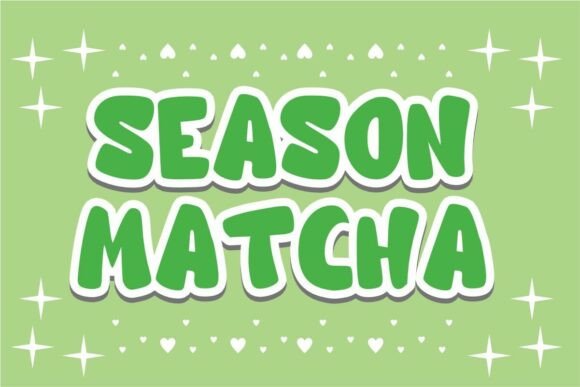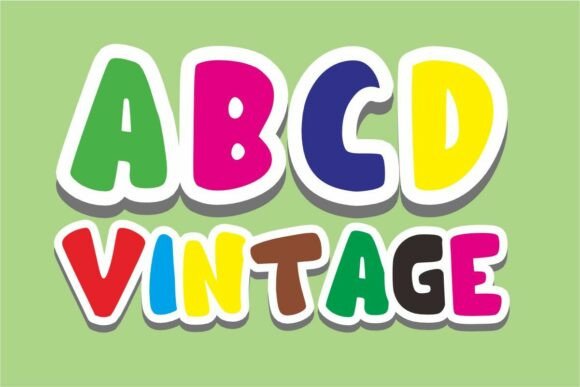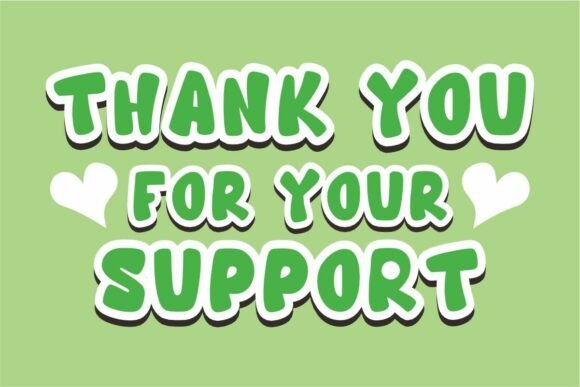
Introduction to Matcha Bubble Font
Have you ever stared at a blank canvas, pencil in hand, searching for the perfect font to bring your creative project to life? The struggle is real, but what if you stumbled upon a font that not only captured your imagination but also guaranteed a fun impact? Enter the Matcha Bubble Font, a cheerful display alphabet font that’s about to revolutionize the way you design.
With its bold, rounded letters and large x-height, this high-quality font is perfect for grabbing attention. Whether you’re creating birthday sets, classroom posters, or party banners, the Matcha Bubble Font is sure to add a playful touch. And the best part? It’s completely kid-safe, making it an ideal choice for designers working on children’s products or educational materials.
Key Features of Matcha Bubble Font
• Unique, hand-drawn design with a playful, whimsical feel, ideal for adding a touch of personality to your work.
• Features a transparent background, allowing for easy customization and layering in your creative project.
• Includes a range of sizes and resolutions, from 10pt to 72pt, to suit your specific design needs.
• Designed to be highly legible and versatile, making it suitable for a variety of applications, from digital to print.
Honest Review: Matcha Bubble Font
As a designer, I’m always on the lookout for unique and high-quality design resources to elevate my creative projects. The Matcha Bubble Font is one such resource that caught my eye. In this review, I’ll share my honest thoughts on what works well and what could be improved.
• ✨ Unique design style: The Matcha Bubble Font has a distinctive, playful aesthetic that’s perfect for projects that require a touch of whimsy.
• ✨ High-quality glyphs: The font includes a wide range of glyphs, including punctuation marks and numbers, ensuring that your text looks polished and professional.
• ⚠️ Limited font sizes: The font only includes a limited range of font sizes, which may not be ideal for projects that require precise typography.
• ⚠️ No bold or italic styles: The font does not include bold or italic styles, which may limit its versatility in certain design scenarios.
Overall, the Matcha Bubble Font is a solid addition to any designer’s toolkit. While it may have some limitations, its unique design style and high-quality glyphs make it an excellent choice for creative projects that require a touch of personality. With a transparent background and free download, this font is a great resource for designers who want to add a little extra flair to their work.
Matcha Bubble Font is a high-quality, free design resource perfect for creative projects. Its unique bubble-like design makes it an ideal choice for adding a playful touch to your work. The font comes with a transparent background, allowing for seamless integration with any background image or color.
Tips for Getting the Most Out of Matcha Bubble Font
To get the most out of Matcha Bubble Font, try combining it with bold colors and playful graphics. You can also use it to add a touch of whimsy to your branding or marketing materials.
Matcha Bubble Font is perfect for:
• Children’s party invitations and decorations.
• Food and beverage branding.
• Playful social media graphics.